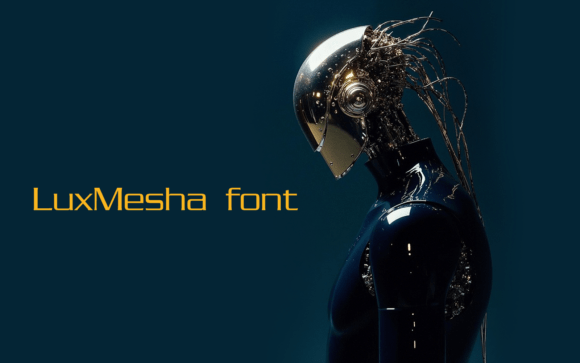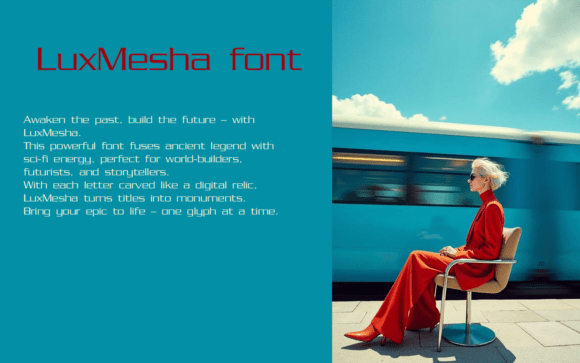
Lux Mesha Font
About the Lux Mesha Font
Let us introduce you to Lux Mesha Font, where timeless design meets modern craftsmanship. Awaken the past, build the future – with LuxMesha.
This powerful font fuses ancient legend with sci-fi energy, perfect for world-builders, futurists, and storytellers.
With each letter carved like a digital relic, LuxMesha turns titles into monuments.
Bring your epic to life – one glyph at a time.
Lux Mesha excels in headlines, posters, and branding projects requiring a bold, futuristic aesthetic. Its strong glyphs command attention, making it ideal for titles, logos, and short impactful statements. However, its highly stylized forms are less suitable for body text or UI elements where readability is paramount. Avoid using it for long paragraphs or small sizes.
The font’s core personality is powerful and dramatic, conveying a sense of both ancient wisdom and technological advancement. This makes it perfect for brands related to science fiction, fantasy, historical fiction, or high-end technology.
Consider pairing Lux Mesha with a clean sans-serif like Open Sans for readability in supporting text, or a more delicate script font like Great Vibes for a touch of elegance in secondary elements. A geometric sans-serif such as Roboto would also create a strong, modern contrast.